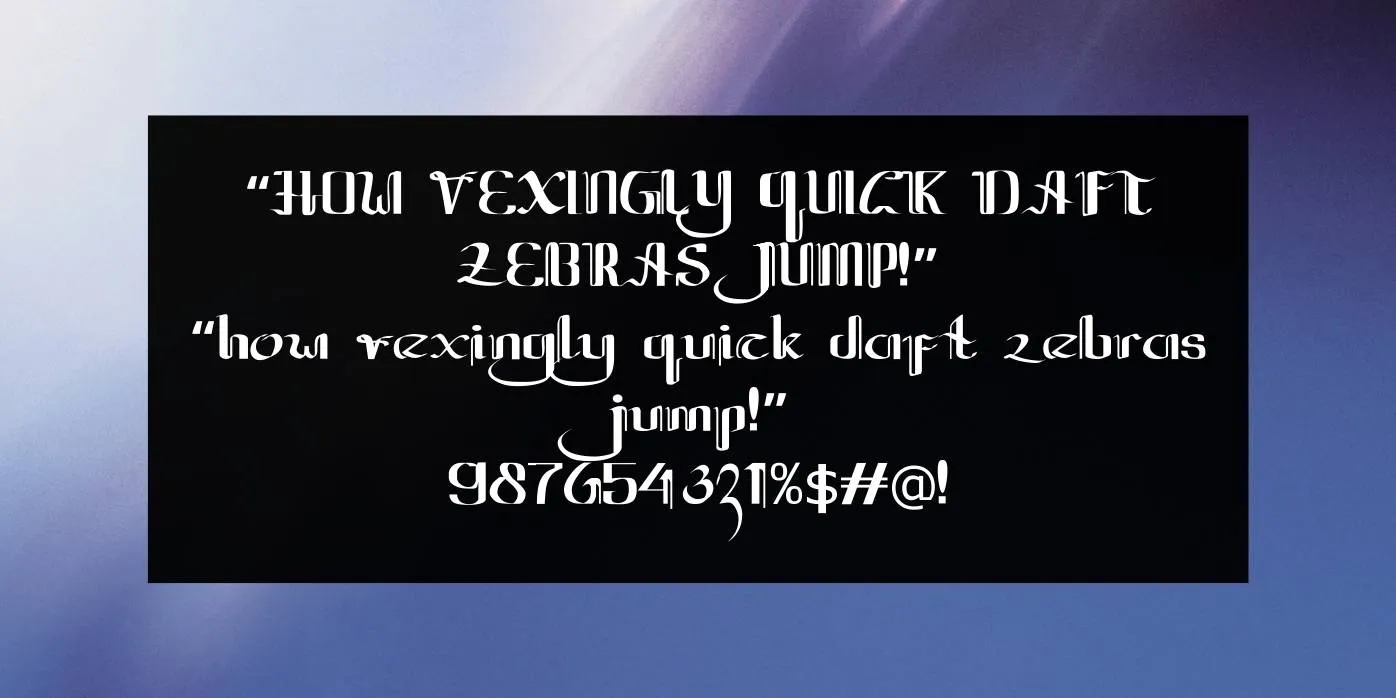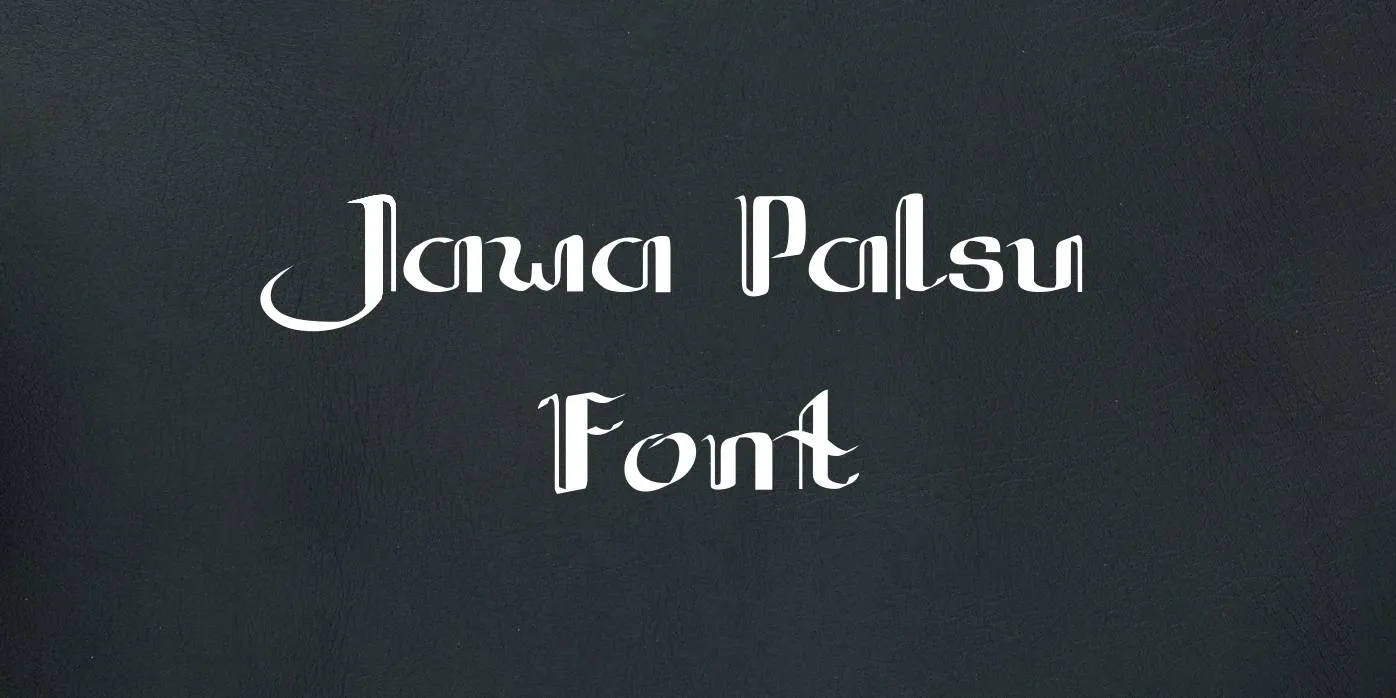
Jawa Palsu Font
Jawa Palsu Font is a fancy typeface created by Swiss designer Max Miedinger in 1957. The design was influenced by the popular typefaces of the time, such as alpha font and Futura. However, This Font has a more humanist quality than its predecessors, with softer curves and thicker strokes. These characteristics give the typeface a friendly and approachable personality, making it ideal for use in body text.
This font was originally released by the Haas Type Foundry in Switzerland and has since been made available from a number of different foundries. It is currently one of the most popular fancy typefaces in the world and is used by a wide range of brands and publications. If you’re looking for a typeface with a classic look, but with a bit more personality than some of the more austere designs, then this font could be the perfect choice for you.